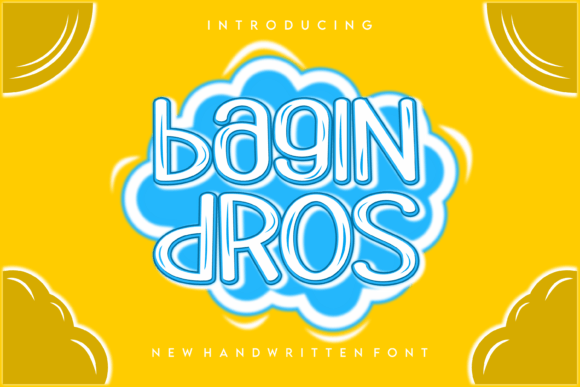
Feast your eyes upon Bagindros, a display font crafted with precision and passion. A darling of designers and typographers alike, this font boasts bouncy and modern characters that will infuse your designs with effervescent charm. Bagindros is perfect for titles, headlines, and other text elements demanding attention. It's a veritable playground of visual delight, allowing you to express your creativity without bounds.
Bagindros is not merely a font; it's an experience. Its dynamic curves and playful serifs create a sense of movement and joy that's impossible to ignore. It's a font that commands attention, yet its amicable nature ensures it never overpowers your content. Whether you're crafting logos, posters, or social media graphics, Bagindros will make your words dance off the screen.
More than just a font, Bagindros is an investment in your creative arsenal. Its versatility knows no bounds, effortlessly adapting to a myriad of design styles. From classic and elegant to modern and edgy, Bagindros effortlessly complements your vision. It's a font that grows with you, accommodating your evolving design needs.
With Bagindros at your disposal, you'll discover a newfound confidence in your design abilities. Its user-friendly nature makes it accessible to designers of all skill levels, empowering you to create captivating visuals with minimal effort. So, embrace Bagindros and let your creativity flourish. The possibilities are endless; the only limit is your imagination.